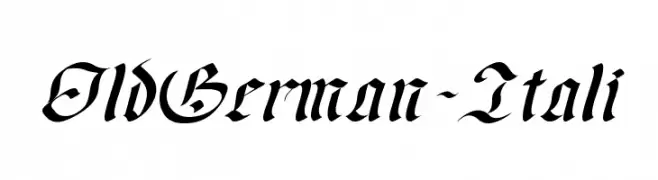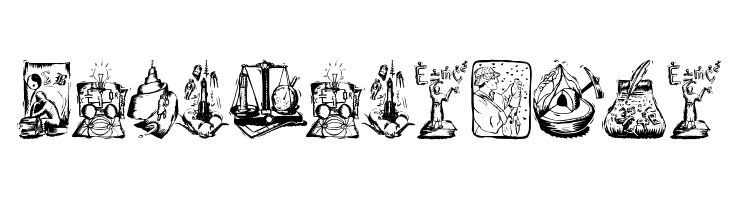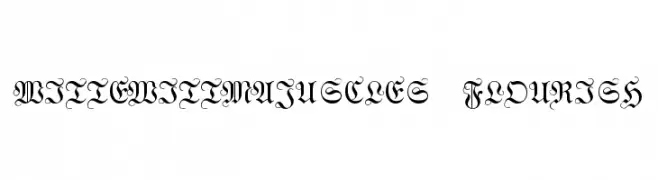
( Fonts by Dieter Steffmann )
A bold, decorative Blackletter font with intricate Gothic elements.
( Fonts by Dieter Steffmann )
A traditional Blackletter font with ornate, angular letterforms and a vintage aesthetic.
( Fonts by Dieter Steffmann )
A bold, dramatic Blackletter font with intricate, ornate letterforms.
Eclectic vector icon set with abstract, illustrative, and symbolic designs.
( Fonts by Dieter Steffmann )
An ornate, decorative font with intricate, medieval-style embellishments.
An ornate, flourished font with high contrast and elegant calligraphic style.
An anatomical dingbat font with detailed human body illustrations.
Hand-drawn, science-themed pictorial decorative font.